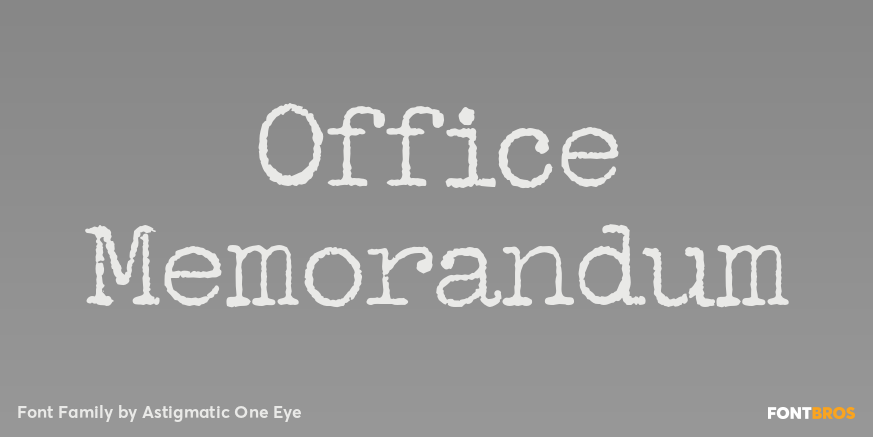
HomeFont BrosDistressedOffice Memorandum DistressedSerif Office Memorandum FacebookXPinterestWhatsApp 1 of 1 About Office Memorandum A typeface made from vintage typewriter samples and meticulously compiled into a complete character set.  DOWNLOAD ON FONT BROSThis font is sold and delivered by Font Bros. Font Canyon may earn a commission if you buy through this link. People also explored Gimme Love Font Rowley Script Font Alek Bold Dartya Font Flamingo Font Scratchy Crayon Font Butnerfly Font Ligurino Corin Stacy Font 353 0 TagsOffice Memorandum Font Previous articlePiege MonogramNext articleMaiden Orange Inline Pro LEAVE A REPLY Cancel reply Comment: Please enter your comment! Name:* Please enter your name here Email:* You have entered an incorrect email address! Please enter your email address here Website: Save my name, email, and website in this browser for the next time I comment. Personal Use Free Camping Personal Use Free Read more about this font Love Heart Personal Use Free Read more about this font Dimensional Look71 Personal Use Free Read more about this font Astercla Personal Use Free Read more about this font BLOG Modern Sans-Serif Fonts That Brands Love in 2025 In 2025, modern sans-serif fonts remain a top choice for brands looking to project clarity, professionalism, and... The 10 Best Handwriting Fonts to Add Personality to Your Designs Exploring Font Trends Using Fonts in Digital Marketing: Tips to Strengthen Your Brand Identity